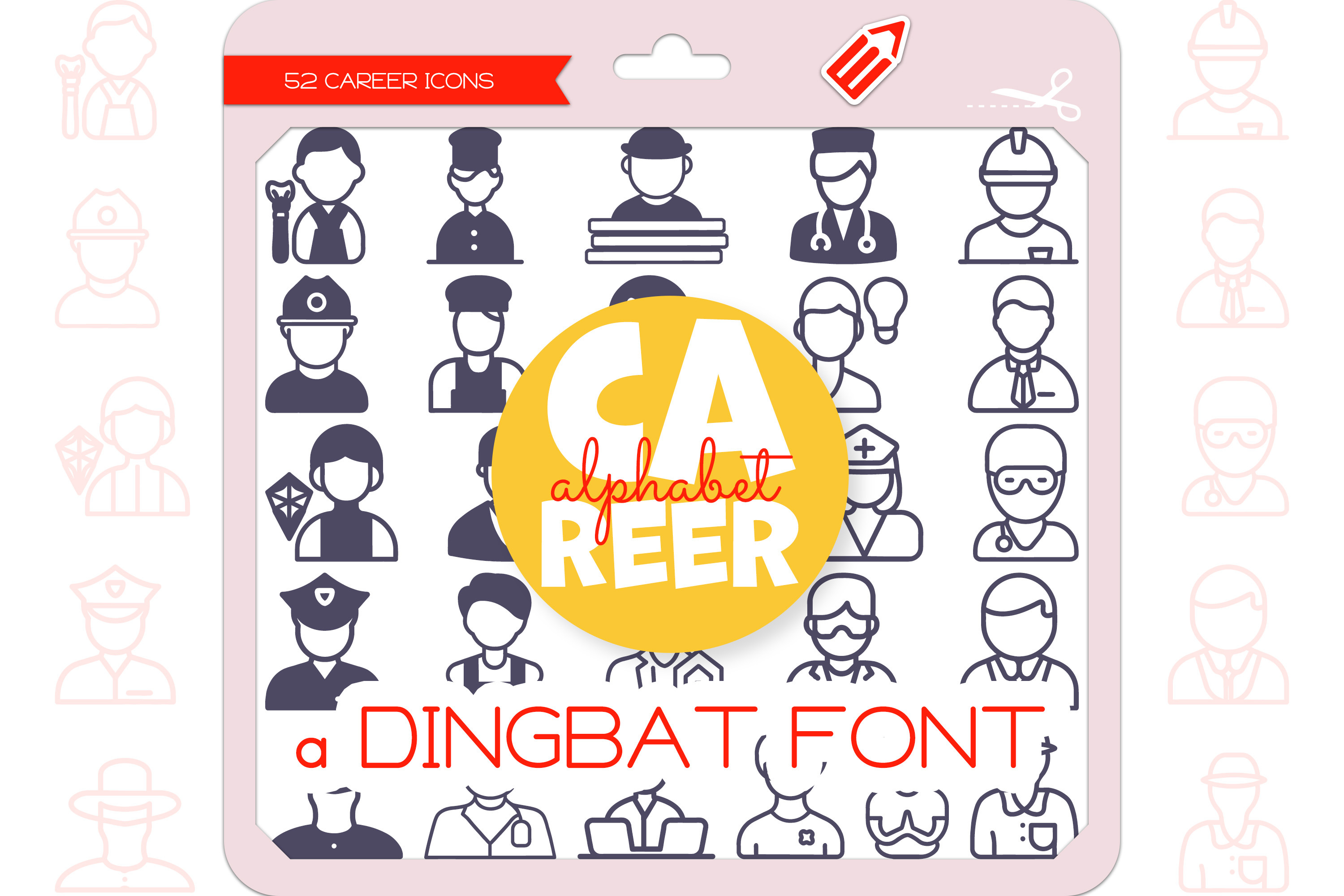
Career Alphabet - Dingbat Font
Career Alphabet is a unique and cute dingbat font, each Career icon representing each letter of the alphabet from A to Z. It contains 52 icons in 2 styles (Outline & Filled-Outline). Add this font to your creative ideas and make your arts outstanding!
The Career Alphabet Icons Dingbat Font featuring 26 A-Z jobs Artist, Baker, Carpenter, Doctor, Engineer, Firefighter, Gardener, Hairdresser, Inventor, Journalist, Kite Designer, Lawyer, Musician, Nurse, Optometrist, Police Officer, Quilter, Real Estate Agent, Scientist, Teacher, Undertaker, Veterinarian, Writer, X-ray Technician, Yoga Instructor, Zookeeper